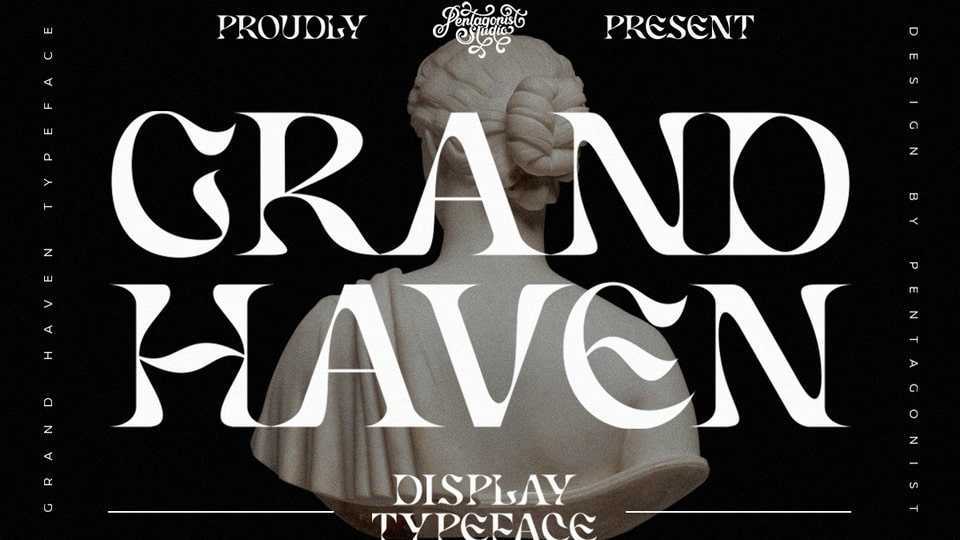
Download Grand Haven font, a vintage display typeface inspired by nostalgic characters. Curves and smooth lines makes Grand Haven font perfect for those editorial use, poster, fashion logos and branding.